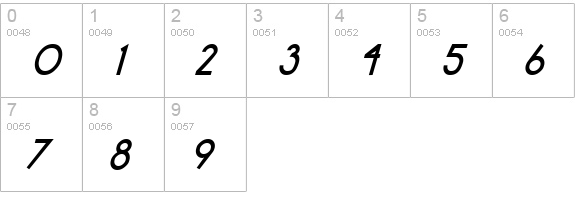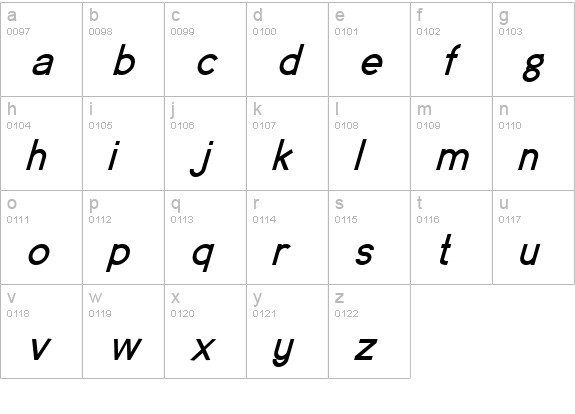
Brassfield Italic Font Details
Brassfield Italic is a distinctive, italic variant in the Brassfield typeface family \xE2\x80\x94 well suited to design and typography projects.
Brassfield Italic font exudes elegance and sophistication with its refined letterforms and gentle slant. This modern typeface strikes the perfect balance between traditional and contemporary design elements, making it a versatile choice for a wide range of projects. The graceful curves and subtle flourishes of Brassfield Italic add a touch of sophistication to any text, enhancing the overall visual appeal. What sets Brassfield Italic apart is not only its timeless charm but also its accessibility. This exquisite font is available for free download at FontsMarket.com, allowing designers and creatives to easily incorporate its beauty into their work without any cost. Whether used for branding, editorial design, or any other creative endeavor, Brassfield Italic is sure to make a lasting impression with its refined aesthetic and effortless style. Elevate your projects with the timeless elegance of Brassfield Italic and let your creativity shine.